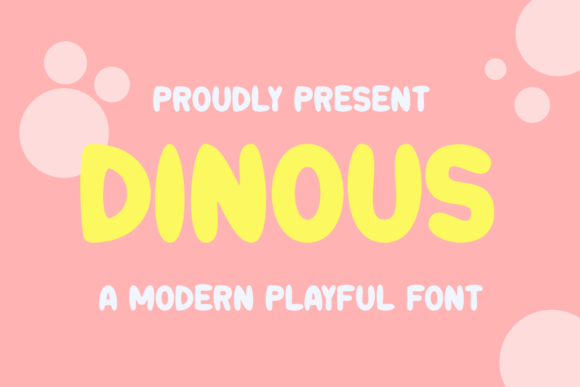
Welcome to the world of typography, where fonts hold the power to transform ordinary words into captivating expressions. Introducing Dinous, an extraordinary display font that will ignite your creativity and elevate your designs to new heights. This playful and captivating font is meticulously crafted to add a touch of charm and personality to your projects.
With its bold and distinctive characters, Dinous makes a statement wherever it's used. Its unique letterforms, inspired by the innocent joy of childhood, bring a sense of playfulness and exuberance to your designs. Whether you're creating greeting cards, invitations, posters, baby clothing, book covers, quotes, logos, presentations, or headlines, Dinous will effortlessly add a touch of magic to your work.
Dive into the boundless possibilities of Dinous and let your imagination soar. See your words come to life with a vibrant energy that captivates and enchants your audience. From whimsical greeting cards that spread joy to elegant invitations that exude sophistication, Dinous adapts seamlessly to a wide range of contexts.